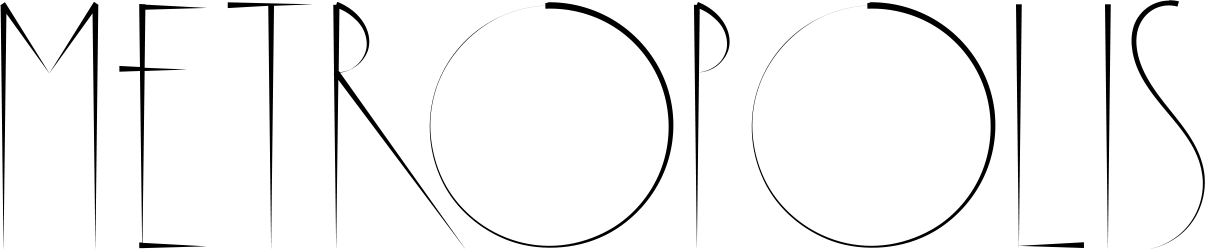
Metropolis Font
Metropolis is a slender sans-serif font that looks wonderful! Its slim hairline characters add a classy feel, which is a stunning feature! Utilize this unique thin font and share your design with an active and positive feel.
A few ideas of places this font will fit well, despite it not containing lowercase letters and punctuations would be websites, logos, posters, branding, UI designs, or wherever you wish for a geometrical look.